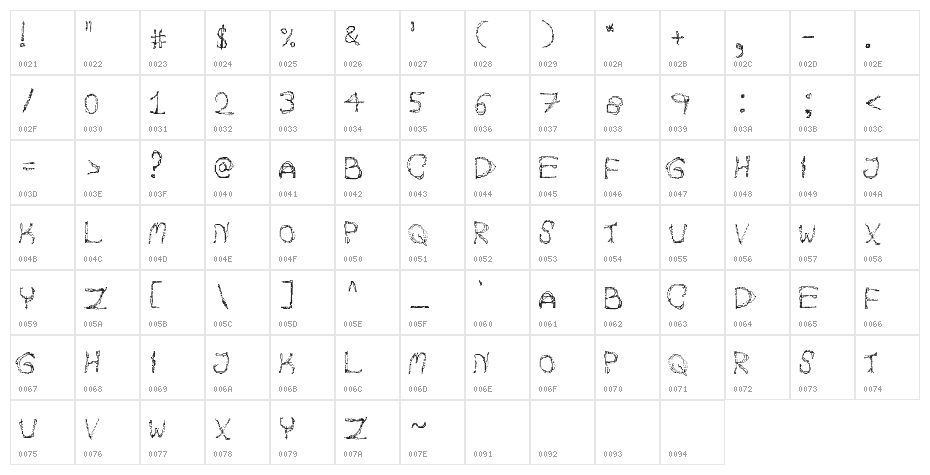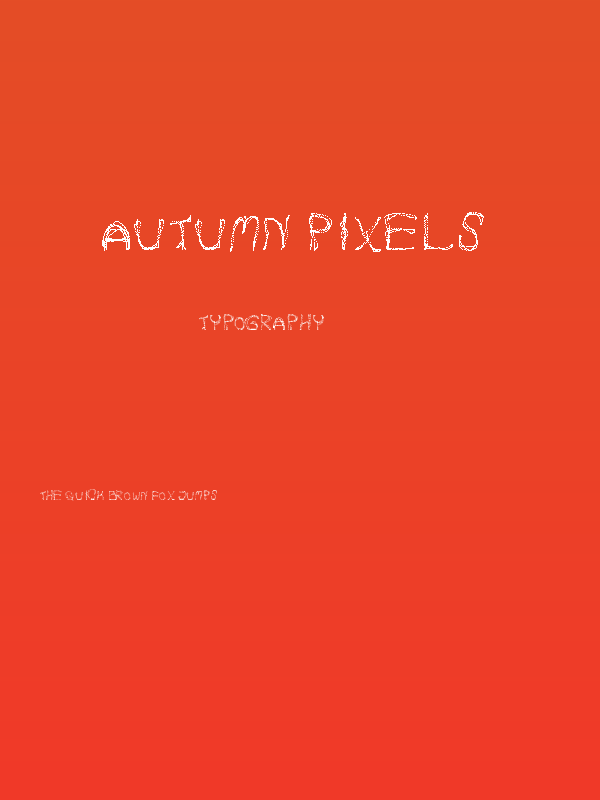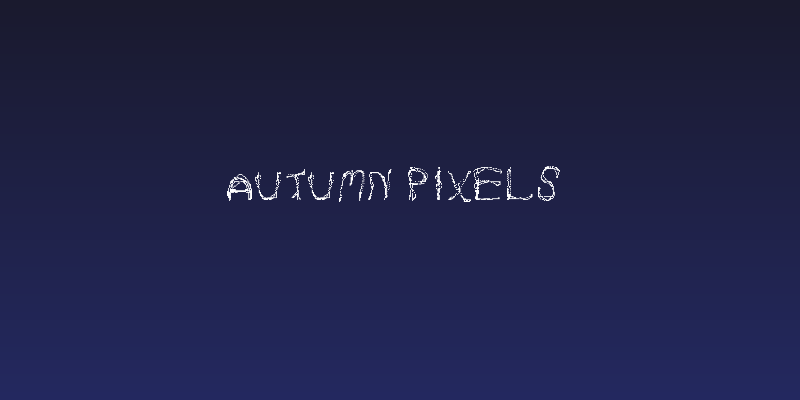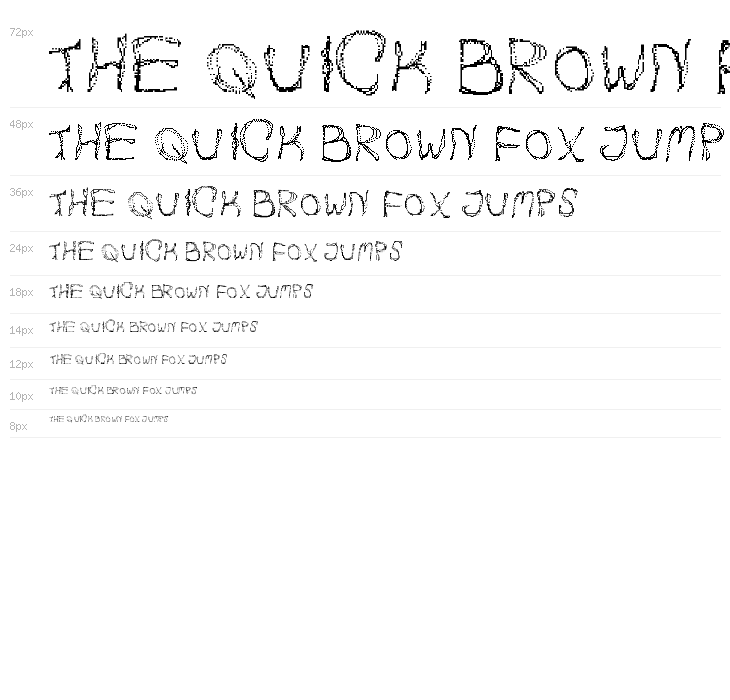
Autumn Pixels Font
Autumn Pixels Description
This font features a playful and textured design, reminiscent of hand-drawn or sketch-like styles. Each character is uniquely crafted with a rough, pixelated outline that gives it a distinctive, artistic appearance. The uppercase and lowercase letters maintain a consistent style, with a whimsical and slightly irregular form that adds to its charm. Numbers and special characters follow the same aesthetic, ensuring a cohesive look across all elements. The font's design is both creative and approachable, making it suitable for projects that require a touch of personality and creativity.
| Overall Style | Artistic, Playful |
| Proposed Projects | Ideal for children's books, creative posters, artistic branding, and playful invitations. |